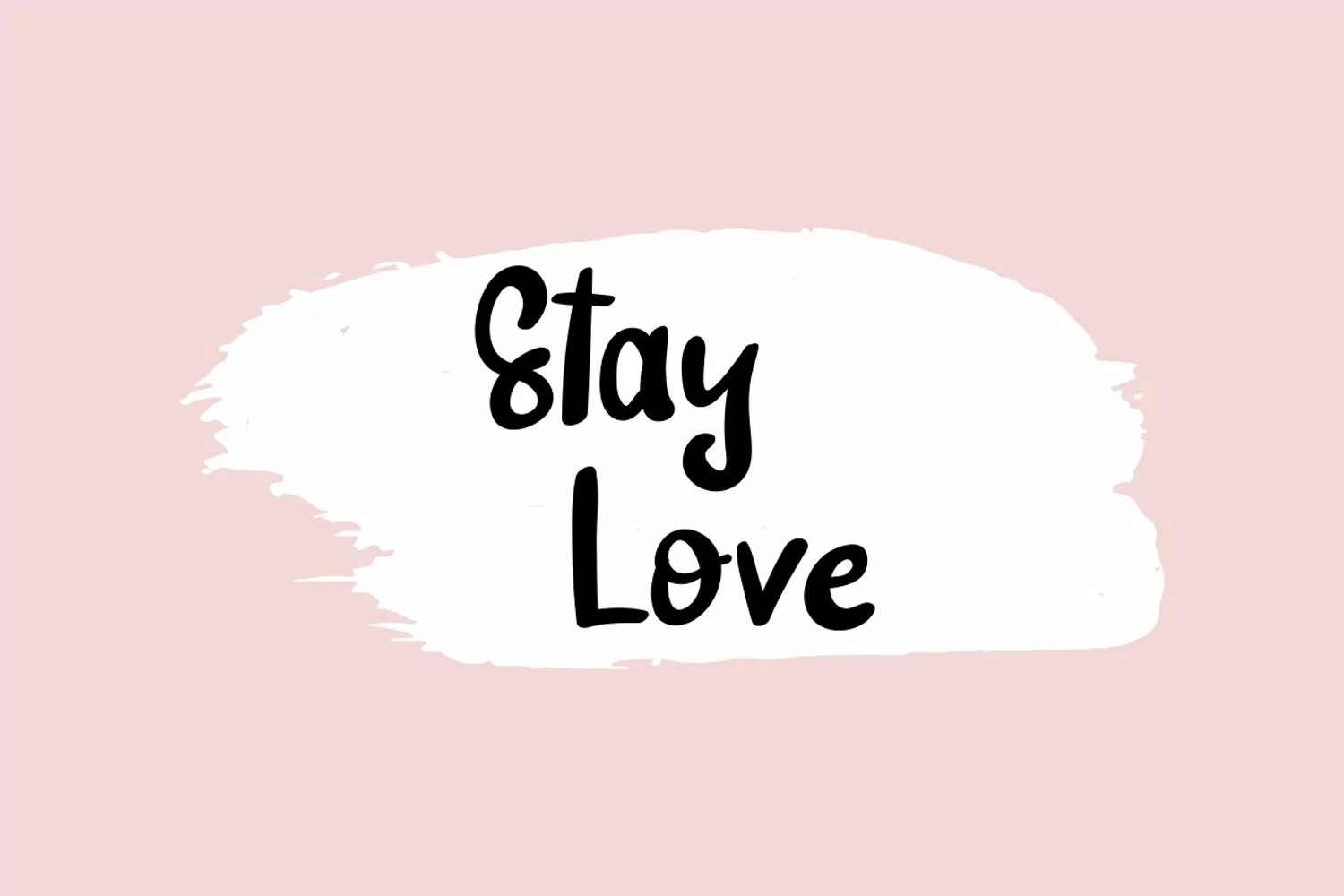
Pink Lovely is a playful handwritten font that is perfect for many different design projects. It is a great font for Cricut and Silhouette crafters as I've made this font as smooth as possible for optimal cut performance. Fall in love with its completely different and timeless style and can use it to create wall designs, logos, wedding invitations, stationery, product labels, photography and much more.